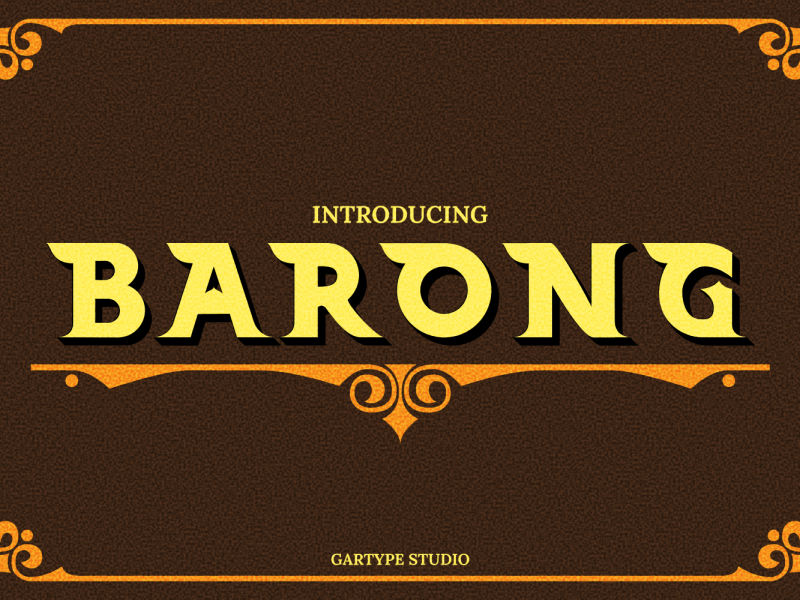
Barong Typeface
Barong is a Vintage style font and have two different styles and Extruded font and also have many ornament for giving the best quality for your project.Barong is good for making Label,logo,branding,and many more